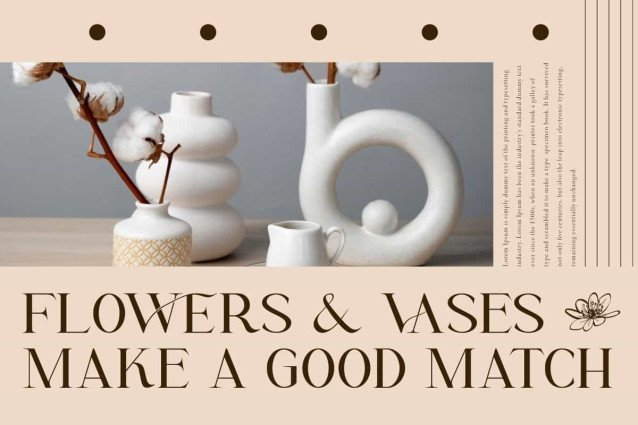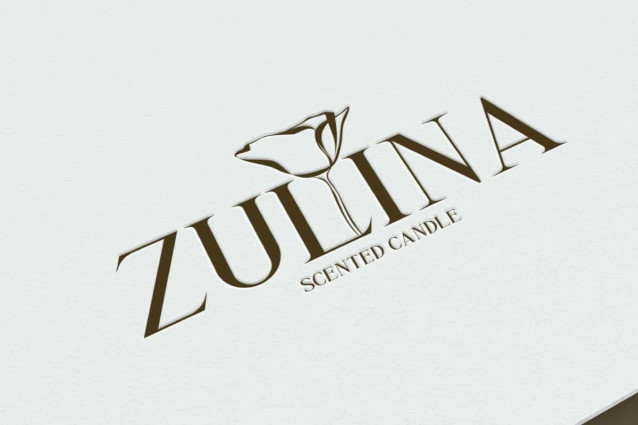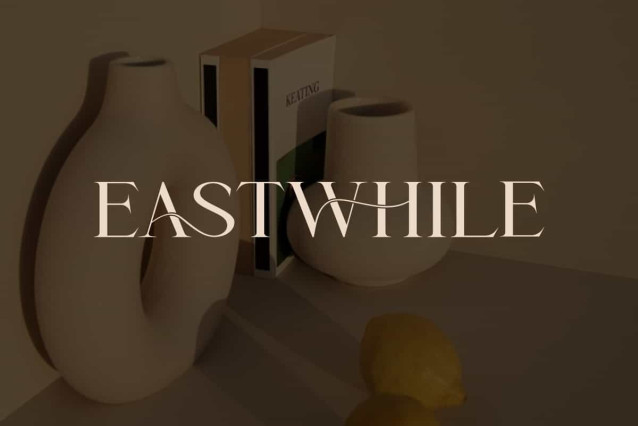
Eastwhile Font
Eastwhile Font is an artistic serif display font that exudes luxury and elegance. This font will be perfect for any projects, can be used for advertisement, brand image, custom design, invitation, label, layout design, quotes, stationery, template design, website, and more!
Eastwhile Font includes full set of Uppercase and Lowercase Basic Characters, Numerals, Punctuation, Symbol and Ligature character. Its sleek and clean font style is complemented by curved elements that give it a unique and classy touch. Making it a perfect choice for a variety of fields, such as fashion, accessories and jewelry, beauty product, event or wedding organizer, florist, furniture, real estate, spa salon, etc.